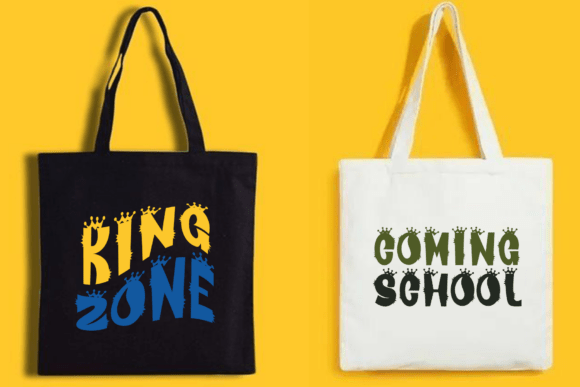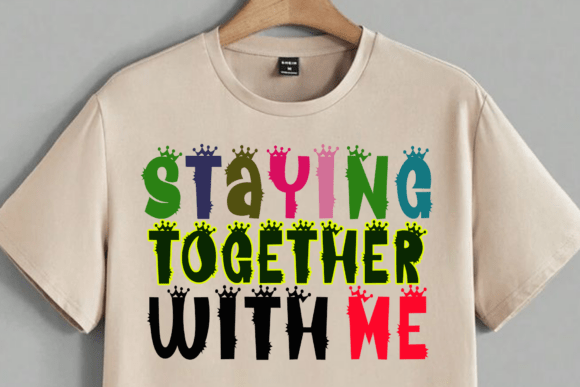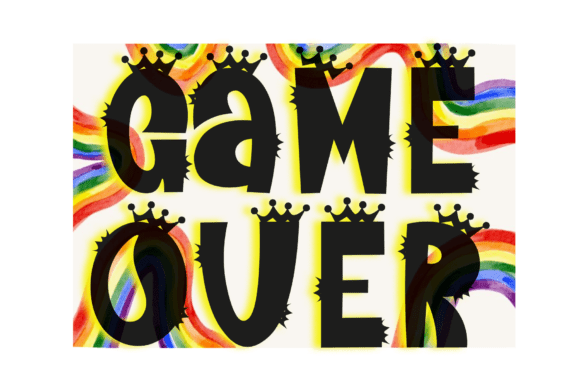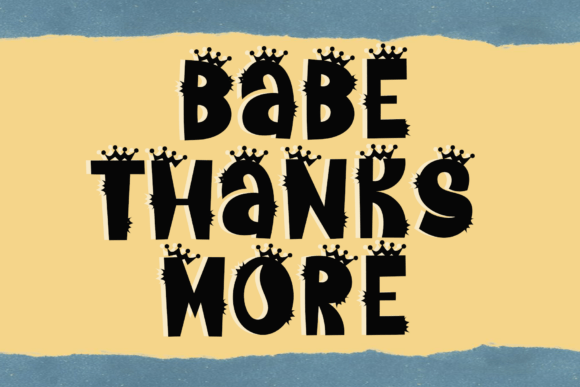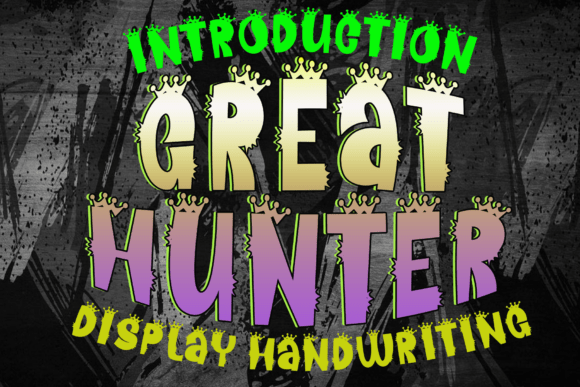
Unleash Your Creativity with Great Hunter Font: A Bold and Energetic Display Handwriting Font
Are you a designer or crafter looking for a font that can add a touch of wild personality to your projects? Look no further than the Great Hunter font. This bold and energetic display handwriting font is perfect for creating eye-catching graphics, posters, and branding materials that need to stand out from the crowd.
What Makes Great Hunter Font So Special?
Great Hunter font is a unique and playful font that features spiky crown-like elements and a cartoonish flair. Its bold and energetic design makes it ideal for a variety of creative projects, from gaming graphics and kids’ events to monster-themed posters and playful branding. The font’s wild personality is sure to capture the attention of your audience and leave a lasting impression.
Perfect for Gaming Graphics
Great Hunter font is a perfect fit for gaming graphics, such as game titles, logos, and promotional materials. Its bold and energetic design can help to create a sense of excitement and energy, drawing players in and making your game stand out from the competition. Whether you’re creating a game for kids or adults, Great Hunter font is sure to add a touch of personality and fun to your graphics.
Kids’ Events and Activities
Great Hunter font is also ideal for kids’ events and activities, such as birthday parties, carnivals, and festivals. Its playful and cartoonish design can help to create a sense of fun and excitement, making it perfect for invitations, posters, and other promotional materials. The font’s bold and energetic design is sure to appeal to kids and parents alike, making your event stand out from the crowd.
Monster-Themed Posters and Branding
If you’re creating monster-themed posters or branding materials, Great Hunter font is a perfect choice. Its spiky crown-like elements and cartoonish flair can help to create a sense of edginess and playfulness, making it ideal for monster-themed designs. The font’s bold and energetic design can help to create a sense of excitement and energy, drawing viewers in and making your posters and branding materials stand out.
Playful Branding and Packaging
Great Hunter font is also perfect for playful branding and packaging. Its bold and energetic design can help to create a sense of fun and excitement, making it ideal for brands that want to stand out from the competition. Whether you’re creating packaging materials, labels, or promotional materials, Great Hunter font is sure to add a touch of personality and playfulness to your brand.
Key Features of Great Hunter Font
- Bold and Energetic Design: Great Hunter font features a bold and energetic design that’s perfect for creating eye-catching graphics and posters.
- Spiky Crown-Like Elements: The font’s spiky crown-like elements add a touch of edginess and playfulness to your designs.
- Cartoonish Flair: Great Hunter font features a cartoonish flair that makes it perfect for kids’ events, monster-themed posters, and playful branding.
- High-Quality Design: The font is designed with high-quality craftsmanship, ensuring that it looks great in any size or format.
Great Hunter font is a bold and energetic display handwriting font that’s perfect for designers and crafters looking to add a touch of wild personality to their projects. Its spiky crown-like elements and cartoonish flair make it ideal for gaming graphics, kids’ events, monster-themed posters, and playful branding. With its high-quality design and versatility, Great Hunter font is sure to become a go-to font in your collection.